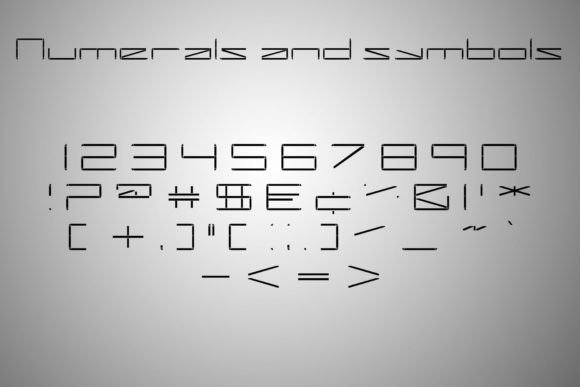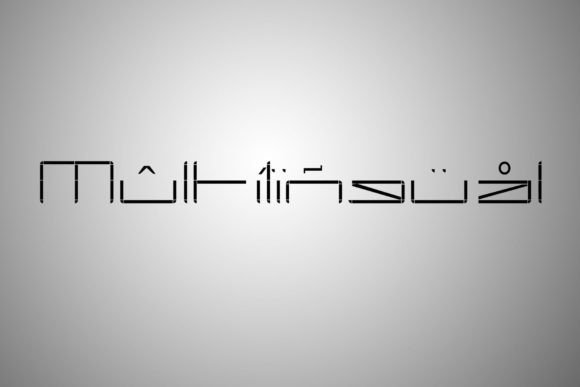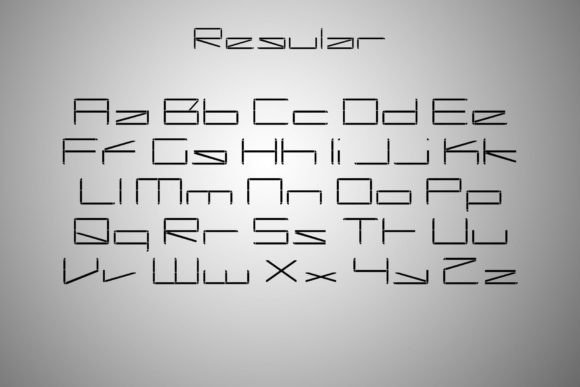
Introducing Cutman Font: Elevate Your Designs with a Unique Touch
Are you tired of using the same old fonts in your designs? Look no further than Cutman Font, a distinctive and captivating display font that’s sure to bring your creative ideas to life. In this article, we’ll dive into the world of Cutman Font, exploring its features, benefits, and uses, as well as provide tips on how to incorporate it into your designs.
What is Cutman Font?
Cutman Font is a unique and interesting display font designed to add a touch of personality to your creative projects. Its distinctive style and flair make it perfect for designers, crafters, and anyone looking to elevate their designs. Whether you’re working on a logo, poster, or social media graphic, Cutman Font is sure to make a statement.
Key Features of Cutman Font
- Unique Style: Cutman Font boasts a one-of-a-kind design that’s sure to grab attention.
- Display Font: Perfect for headlines, titles, and short text passages.
- Easy to Read: Despite its unique style, Cutman Font remains clear and easy to read.
- Versatile: Suitable for a wide range of design projects, from logos and posters to social media graphics and more.
Benefits of Using Cutman Font
So why choose Cutman Font for your designs? Here are just a few benefits:
- Adds Personality: Cutman Font brings a touch of personality to your designs, setting them apart from the crowd.
- Grabs Attention: Its unique style and flair make it perfect for grabbing attention and drawing the eye.
- Enhances Creativity: Cutman Font is sure to inspire your creativity and take your designs to the next level.
Using Cutman Font in Your Designs
So how can you incorporate Cutman Font into your designs? Here are a few ideas:
- Logos and Branding: Use Cutman Font to create a unique and memorable logo that sets your brand apart.
- Posters and Flyers: Add a touch of personality to your posters and flyers with Cutman Font.
- Social Media Graphics: Use Cutman Font to create eye-catching social media graphics that grab attention.
- Packaging Design: Add a touch of flair to your packaging design with Cutman Font.
Tips for Working with Cutman Font
Here are a few tips for getting the most out of Cutman Font:
- Use it Sparingly: Cutman Font is a display font, so use it sparingly to maximize its impact.
- Pair it with Other Fonts: Experiment with pairing Cutman Font with other fonts to create a unique and interesting look.
- Play with Size and Color: Don’t be afraid to experiment with different sizes and colors to really make Cutman Font pop.
| Font Name | Cutman Font |
| Author | denestudios |
In conclusion, Cutman Font is a unique and interesting display font that’s sure to elevate your designs and bring your creative ideas to life. With its distinctive style, ease of use, and versatility, it’s perfect for designers, crafters, and anyone looking to add a touch of personality to their projects. So why not give Cutman Font a try and see the difference it can make?
Get Creative with Cutman Font!